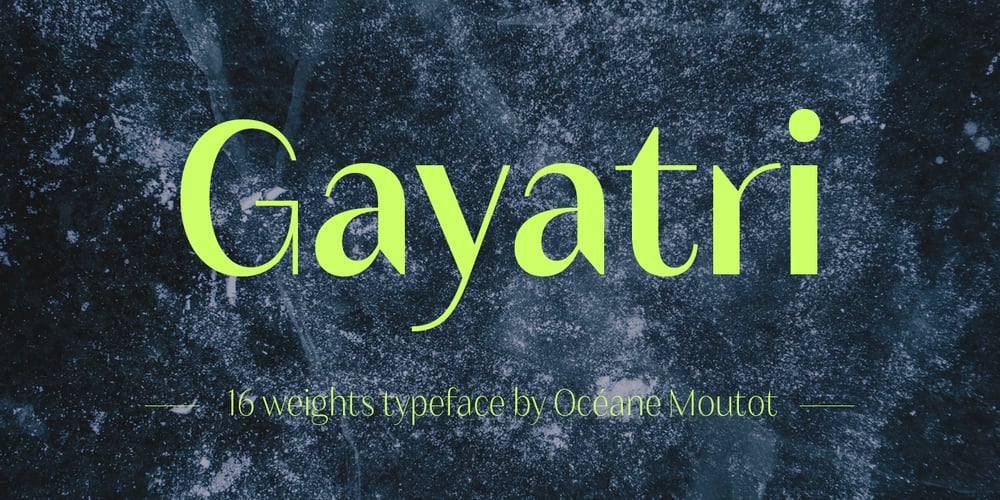
Gayatri Font Family was designed by Océane Moutot and published by Océane Moutot. Gayatri contains 16 styles and family package options. Gayatri is sans serif font with high contrast and smooth lines. Its large variety of glyphs, including accents, old-style numbers, ligatures,… will give you freedom for all of your projects. It offers a large choice of uses such as magazine, branding, edition and so on.Gayatri is available in 16 styles from thin to black, in roman and italic.